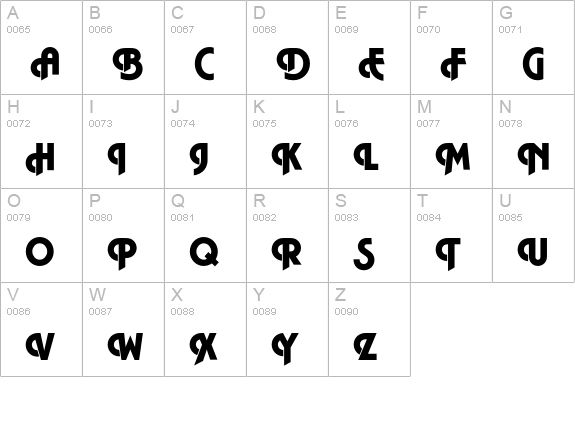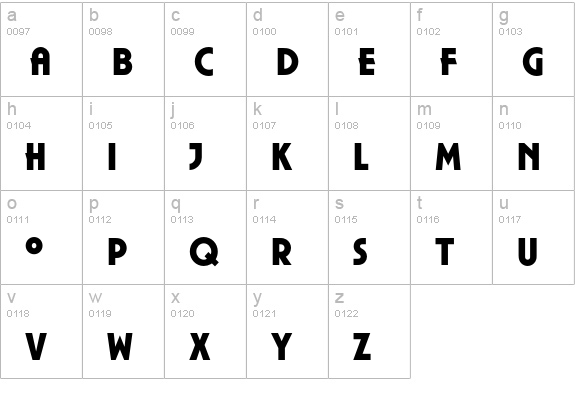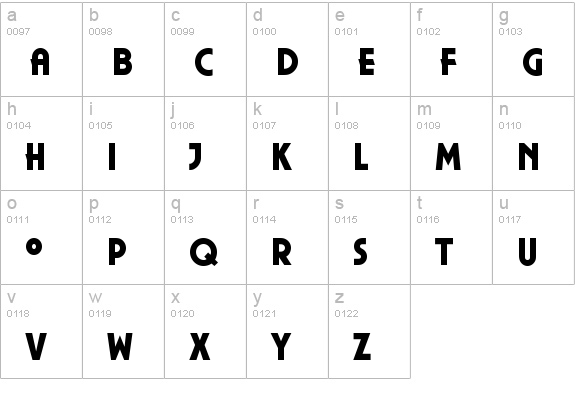
PlazaEF-Ultra is an extreme-weight, display variant in the PlazaEF typeface family \xE2\x80\x94 well suited to extreme display use where maximum visual weight is required.
PlazaEF-Ultra font exudes sophistication and modernity with its sleek and stylish design. This versatile typeface boasts clean lines and sharp edges, making it perfect for a wide range of design projects. Whether you're creating a sleek logo, a stylish poster, or a professional website, PlazaEF-Ultra is sure to make a bold statement. What sets PlazaEF-Ultra apart is not only its striking aesthetics but also its accessibility. This premium font is available for free download at FontsMarket.com, allowing designers of all levels to access its premium quality without any cost. With PlazaEF-Ultra, you can elevate your designs to new heights and leave a lasting impression on your audience. Make a statement with PlazaEF-Ultra and watch your designs come to life with style and sophistication.